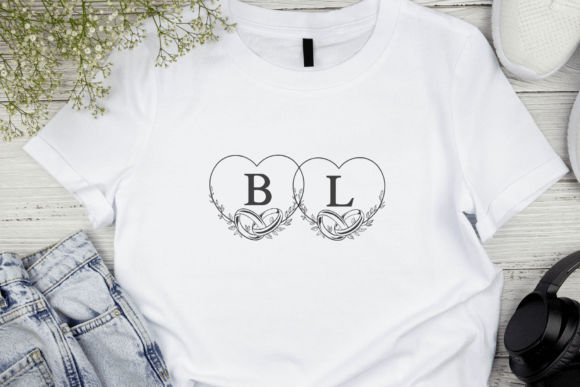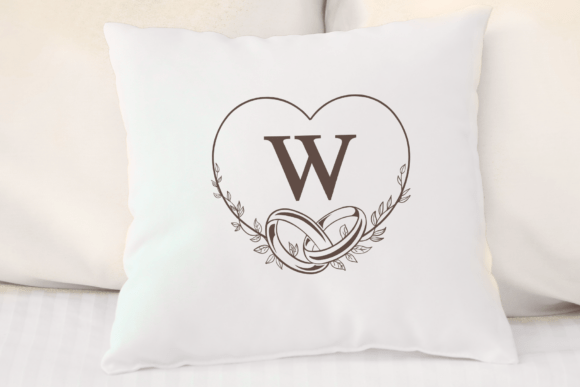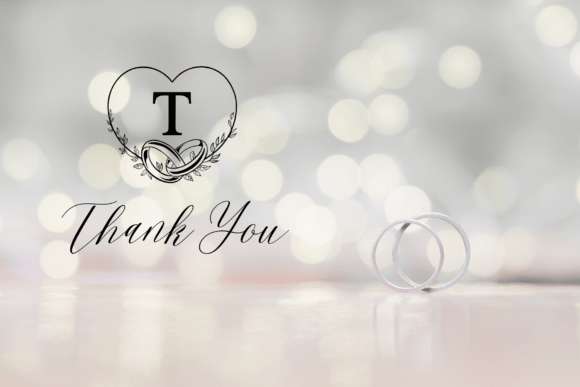
Introduction to Heart Wedding Font
As you sit at your desk, surrounded by sketches, swatches, and scraps of paper, you’re on the hunt for that perfect design element to make your project truly special. Perhaps you’re planning a wedding, and you want to create a unique invitation that reflects your love story. Or maybe you’re a graphic designer looking for a high-quality font to elevate your creative project. Whatever the case, you’re about to discover a design resource that will make your heart skip a beat: the Heart Wedding Font.
This elegant decorative font is a game-changer for designers and crafters alike, offering a beautiful and sophisticated way to express love and unity in your designs. With its refined style and transparent background, the Heart Wedding Font is perfect for creating personalized wedding monograms, invitations, and event signage that exude romance and elegance.
Key Features of Heart Wedding Font
- High-quality design: The Heart Wedding Font is a beautifully crafted, elegant font perfect for creative projects.
- Transparent background: The font’s transparent background allows for easy customization and flexibility in design.
- Vector-based: The font is vector-based, making it scalable to any size without losing quality.
- Size: The font includes a range of sizes, from small to large, to suit various design needs.
- Resolution: The font is designed to be high-resolution, ensuring crisp and clear text at high print or digital resolutions.
Honest Review: Heart Wedding Font
I recently stumbled upon the Heart Wedding Font while searching for design resources for a creative project, and I must say, it’s a gem! The high quality and elegant design make it perfect for wedding invitations, cards, or any other romantic theme.
Here are some features that I particularly love about the Heart Wedding Font:
- ✨ Elegant and sophisticated design, perfect for weddings and romantic themes.
- ✨ Comes in a transparent background, making it easy to customize and blend with any design.
- ✨ Highly legible and easy to read, even at smaller font sizes.
- ⚠️ The font is only available in a limited number of languages, which might be a concern for designers working on international projects.
Overall, I’m very impressed with the Heart Wedding Font. It’s a beautiful and versatile design resource that’s perfect for creative projects. With a few minor limitations, I highly recommend it to anyone looking for a high-quality font for their next design project.
To get the most out of the Heart Wedding Font, experiment with different font sizes, colors, and combinations. You can also use the font in conjunction with other design elements, such as graphics and images, to create a unique and memorable design.
Common Use Cases for the Heart Wedding Font
The Heart Wedding Font is perfect for creating wedding-related materials, such as wedding invitations, save the dates, programs, thank-you cards, and other wedding stationery. You can also use the font to create elegant and beautiful designs for other special occasions, such as anniversaries or baby showers.